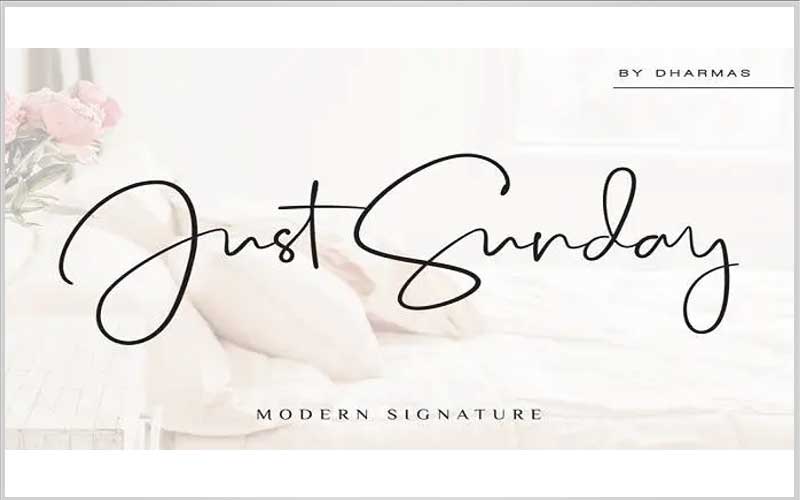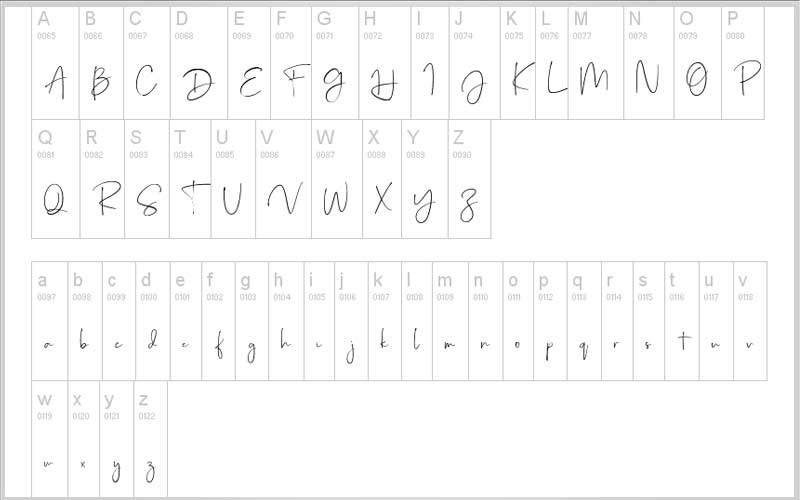
Just Sunday is a high quality Handwritten font that is designed by dharmas and is available for free download personal Use. The free version provides all uppercase and lowercase letters and a few special characters too.